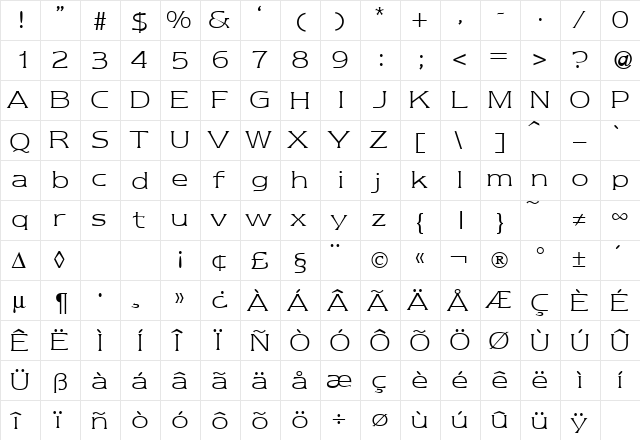
NebraskaLight Regular
Design Context for NebraskaLight Typeface
NebraskaLight offers clean, dependable letterforms without strong stylistic allegiance, making it a practical choice for designers who need flexibility. Its slender proportions lend an understated elegance to any composition.